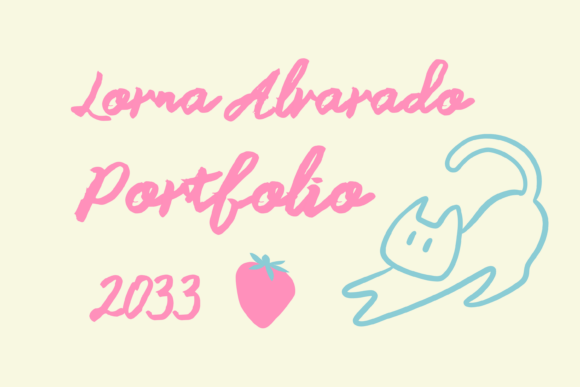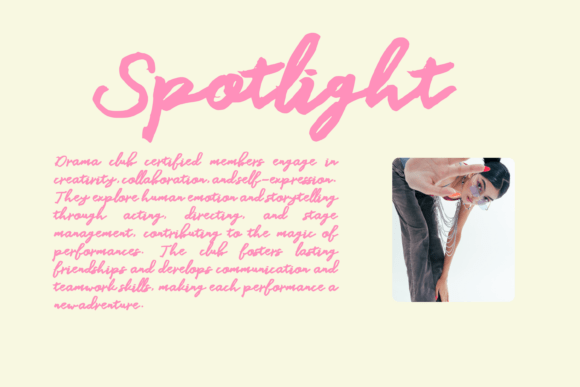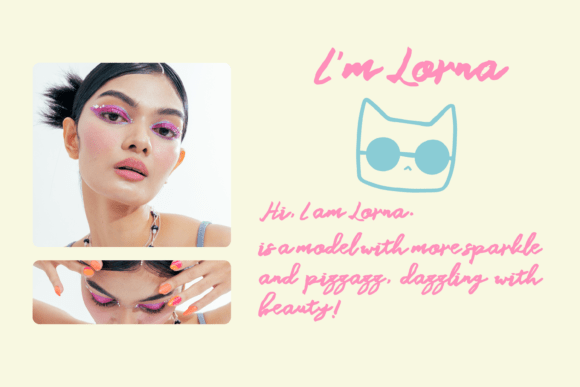
Introduction to Sebda Font
Introducing Sebda, a modern script font written with a bold ink marker style.
Designed with natural flow and expressive strokes, Sebda brings a personal, handcrafted feel to your designs — perfect for branding, quotes, packaging, posters, and more This font includes uppercase & lowercase characters, numerals, a wide range of punctuation, multilingual support, and 33 custom ligatures to enhance smoothness in lowercase letter combinations.
Key Features of Sebda Font